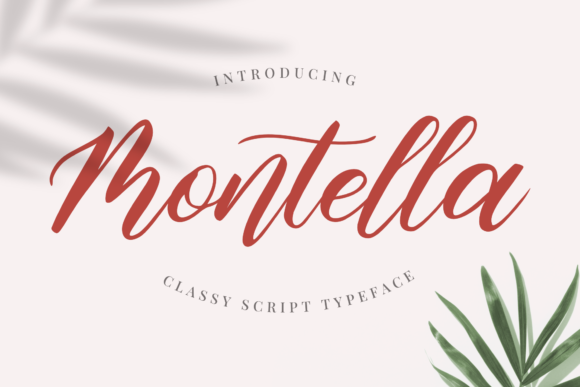
Introducing Montella, an extraordinary script font that will ignite your creativity! This enchanting typeface captivates with its playful, graceful characters that dance across your designs.
If you yearn to create a logo that exudes charm and elegance, Montella is your perfect match. Its captivating curves and distinctive style will make your brand instantly recognizable, attracting customers like bees to honey.
But Montella's allure extends far beyond logos. This versatile font adds a touch of whimsy to invitations, social media posts, and any project that calls for a dash of playful sophistication.
With Montella by your side, you'll never again struggle to find the perfect font for your creative endeavors. Its versatility knows no bounds, empowering you to craft designs that exude charm, elegance, and a touch of magic.
Created by the renowned Hayletter Creative, Montella has been recognized as the Best Font for Logo Design in 2013. This prestigious accolade is a testament to its exceptional quality and timeless appeal.